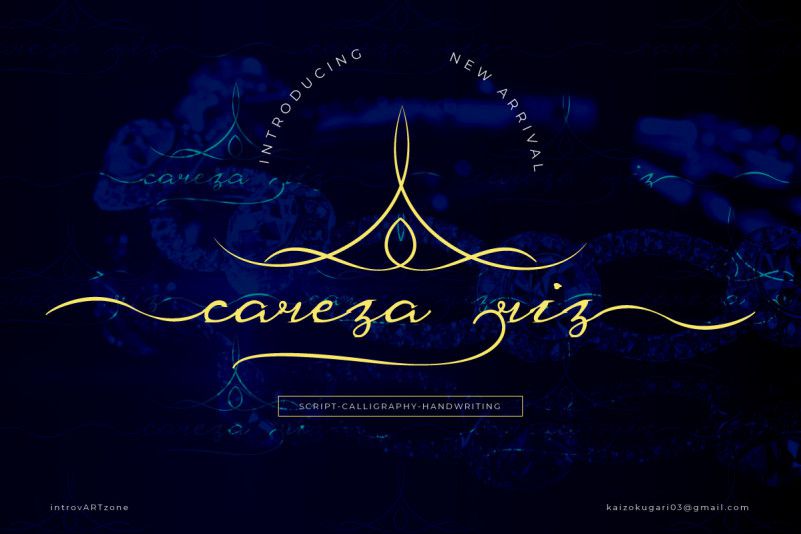
Careza Riz Script Font
Her name is Careza Riz Script Font, her character is simple but still modern and up to date, I made this font as her birthday present in January, I named this font after her name and her character, simple but still elegant and modern.
Careza Font Riz equipped with swashes that can mix and match so that it becomes a very beautiful ornament, perfect for branding, logotype, wedding invitation, and social media.